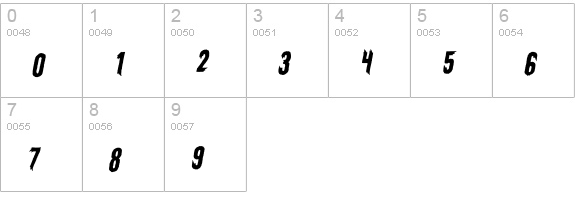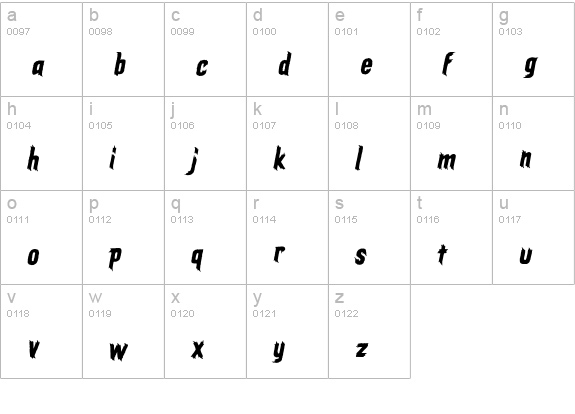
ElderGods BB Italic Font Details
ElderGods BB Italic is a distinctive, italic variant in the ElderGods typeface family \xE2\x80\x94 well suited to design and typography projects.
ElderGods BB Italic font is a captivating and mystical typeface that exudes an otherworldly charm. Its elegant curves and unique design make it perfect for adding a touch of ancient mysticism to your projects. The italicized style adds a dynamic flair, making your text stand out with a sense of movement and energy. The ElderGods BB Italic font is not only visually stunning, but it also carries a sense of timeless wisdom and power. Whether you're working on a fantasy novel, a mystical branding project, or a cosmic-themed design, this font will bring an air of mystique and grandeur to your work. Best of all, ElderGods BB Italic font is available for free download at FontsMarket.com. So go ahead and unleash the magic and mystery of this remarkable typeface in your creations today!